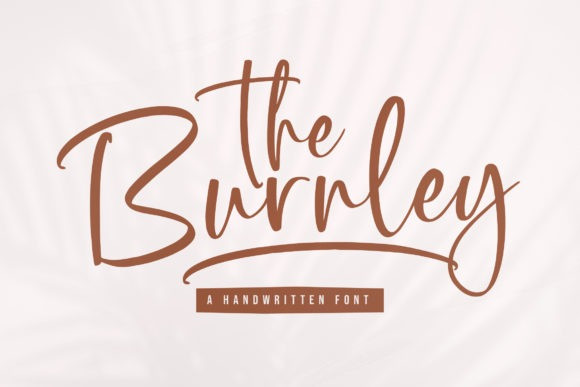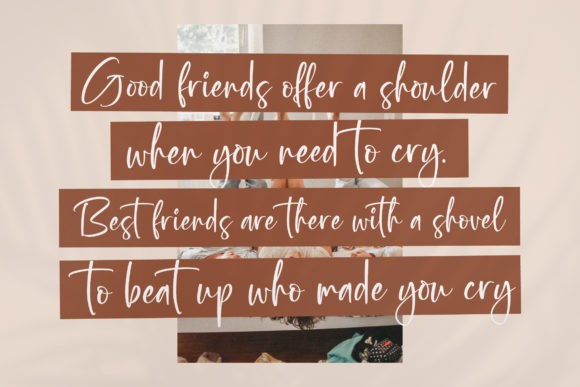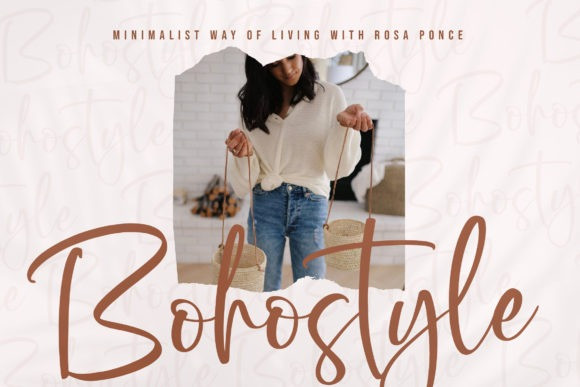
The Burnley Font
The Burnley is a relaxed and trendy script font. It is suitable for any projects such as: logos, branding projects, invitation cards, greeting cards, label, photography, watermark, special events, and all your other lovely projects that need a beautiful script taste. This font is PUA encoded which means you can access all of the glyphs and swashes with ease!